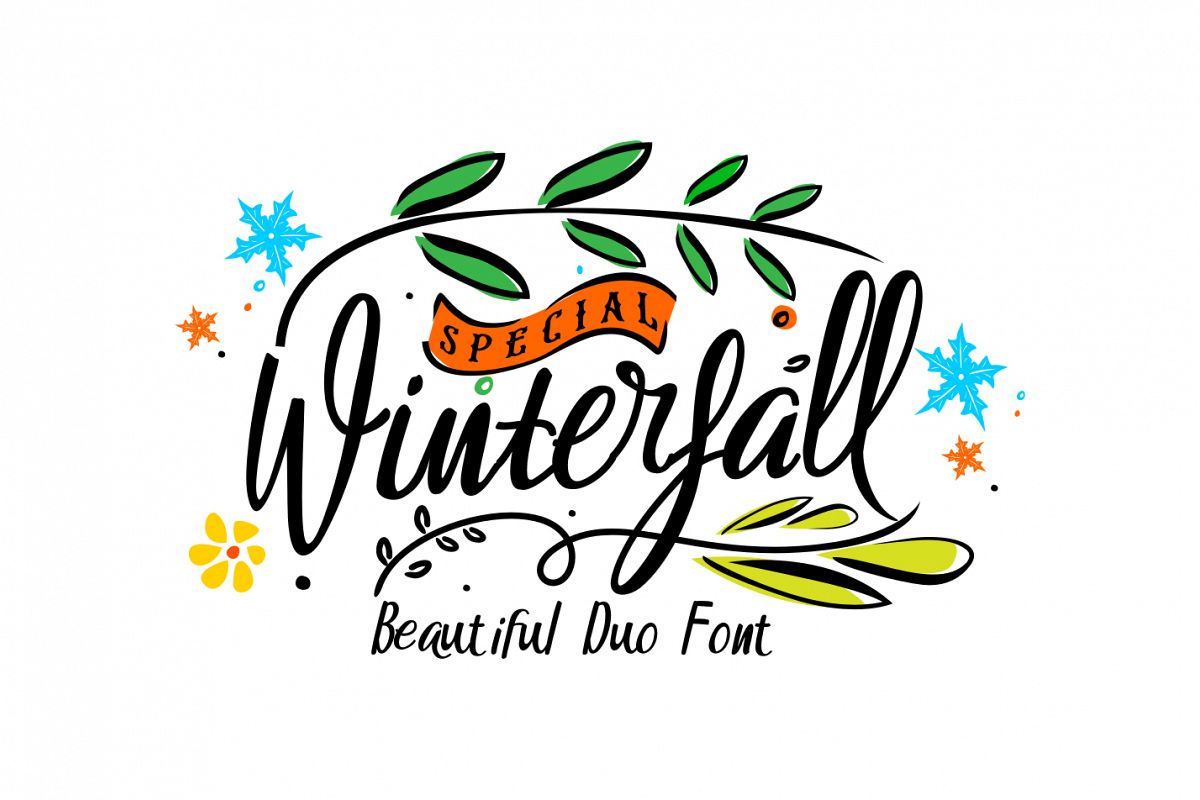
Winterfall Duo Font
Winterfall is handlettring font specifically designed with a variety of alternate, ideal for posters, t shirts, typography, writing etc.